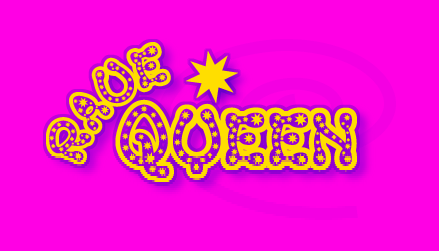
A font for all of you ravers out there. Use it for what you will. But one thing is for sure, this is your basic font for the entire night. Don't mix with other fonts, or I can't be responsible for the consequences.